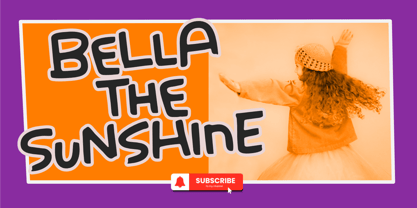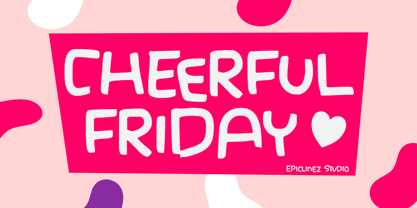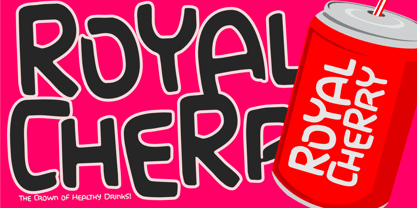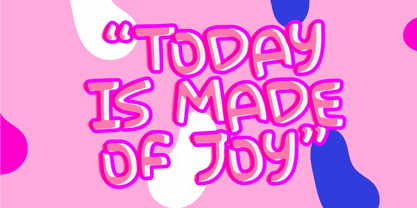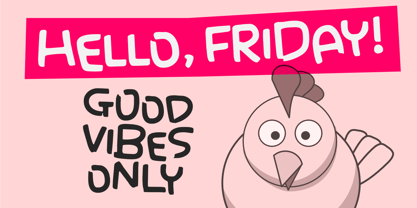
Cheerful Friday
by Epiclinez
The Cheerful Friday Font Family was designed by Aldy Sidik and published by Epiclinez. Cheerful Friday contains 1 styles. More about this family
Cheerful Friday is a fun, cute, and playful handwritten font designed to spread instant happiness. With its bouncy letterforms, rounded edges, and friendly personality, this font feels warm, joyful, and full of positive energy. Perfect for kids' designs, logo branding, snack & food packaging, toys, stickers, children’s books, school projects, social media, and cheerful merchandise, Cheerful Friday brings a smile to every word. Its handmade look adds charm while staying clear and readable, making it ideal for both digital and print use. Whether you’re creating playful branding, colorful packaging, or happy kid-focused visuals, Cheerful Friday turns everyday text into something fun, friendly, and full of joy.
Designers: Aldy Sidik
Foundry: Epiclinez